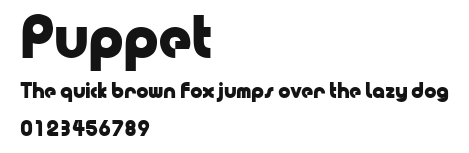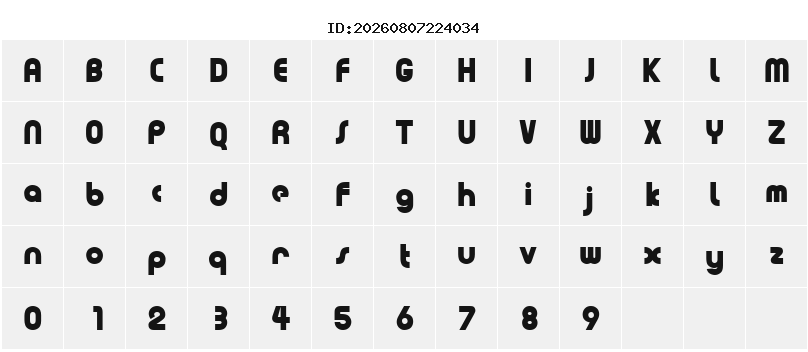
• Font Name: Puppet
• Font ID: Brendel :Puppet
• Full Font Name: Puppet
• Version: Brendel :10.12.1994
• PostScript Name: Puppet
• Character Count: 187
• Copyright: (C) 1994 Brendel Informatik GmbH
About Puppet.ttf
Puppet.ttf is a modern, elegant sans-serif font designed for ultimate readability and visual harmony. Perfect for branding, headlines, web design, and print materials.